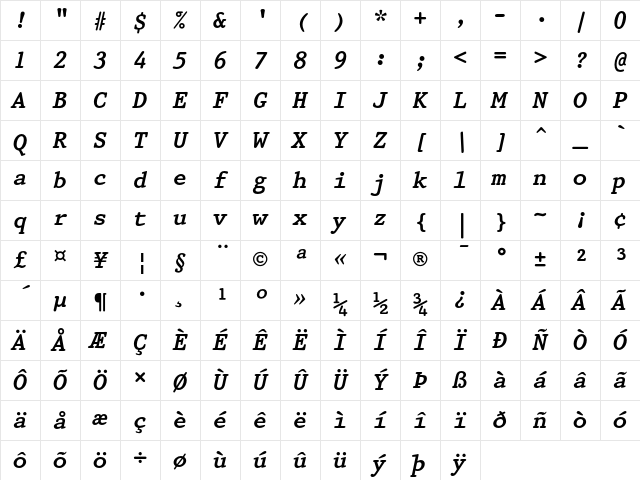
Prestige 12 Pitch Bold Italic
Design Context for Prestige 12 Pitch
Prestige 12 Pitch is a composed and adaptable typeface that performs quietly and consistently across a wide range of design contexts. The slanted form adds forward momentum and visual energy. Its bold stroke weight gives it real presence on the page.
Pro Tip: Use Prestige 12 Pitch for emphasis, pull quotes, and subheadings where its slanted energy can add rhythm to the layout.